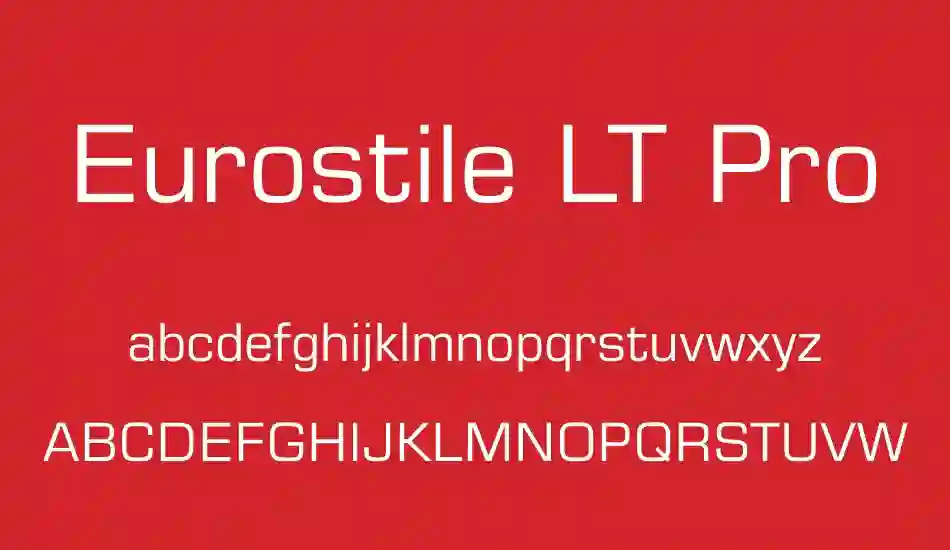
Eurostile LT Font is an exceptional choice for a broad spectrum of design applications that require a strong, modern, and highly technical aesthetic. Imagine it commanding attention as bold headlines on a futuristic tech company's website, providing clear and impactful text for aerospace branding, or lending a sleek, minimalist look to product packaging for electronics. Its distinctive square forms and precise geometry also make it ideal for automotive advertising, sci-fi movie titles, and any project where a sense of innovation, precision, and a forward-thinking attitude is desired.
What makes Eurostile LT Font so exciting is its iconic and instantly recognizable design, which perfectly embodies the space age and digital era. Created by Aldo Novarese in 1962, its clean, wide letterforms and rounded square counters give it a unique personality that is both futuristic and timeless. It manages to convey a sense of strength and modernity without being overly aggressive, making it a versatile choice for conveying technological advancement and streamlined efficiency. Its enduring popularity is a testament to its powerful visual impact and remarkable legibility in display settings.
The Eurostile LT Font family is comprehensive, offering a versatile array of weights and widths to give designers maximum flexibility. You can typically find a wide range, from a delicate Ultra Light to a powerful Bold or even a commanding Black, allowing for precise control over visual hierarchy. Furthermore, the inclusion of condensed and extended widths means you can tailor the font's footprint to fit any layout constraints, whether in print or digital media. This extensive selection ensures that Eurostile LT Font Free Download provides all the tools you need for any project aiming for a modern and impactful typographic statement.